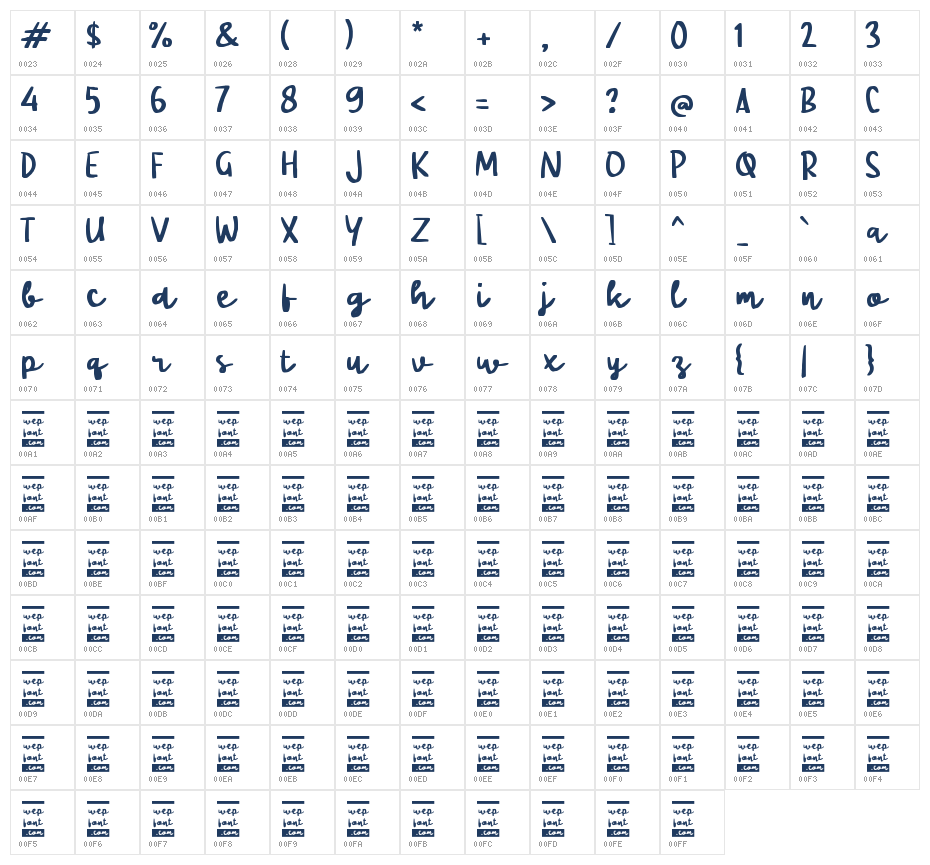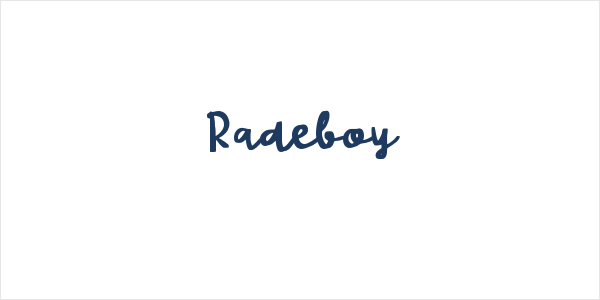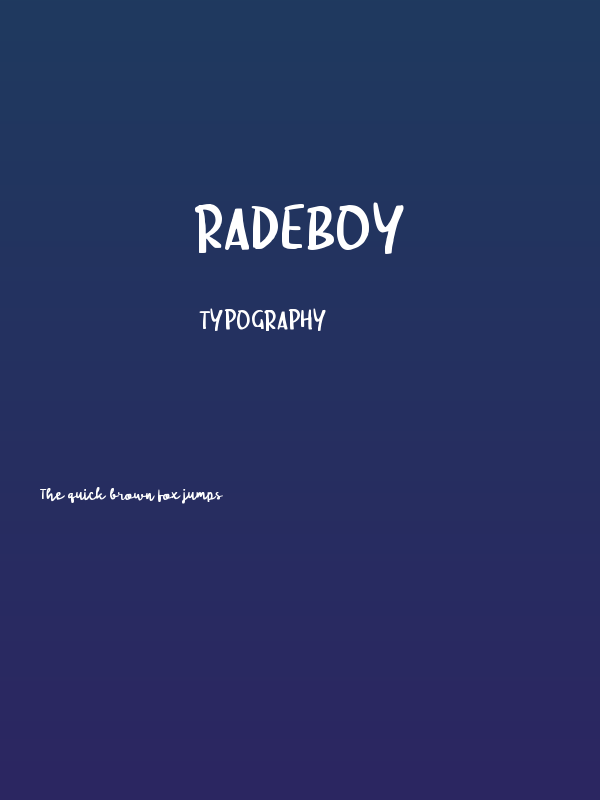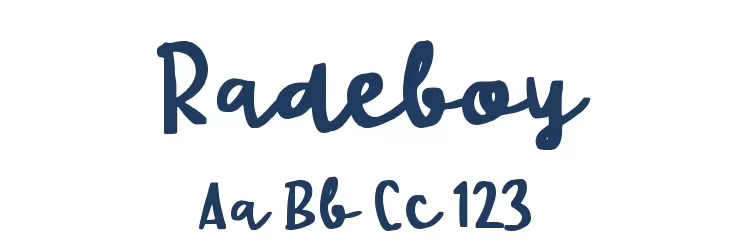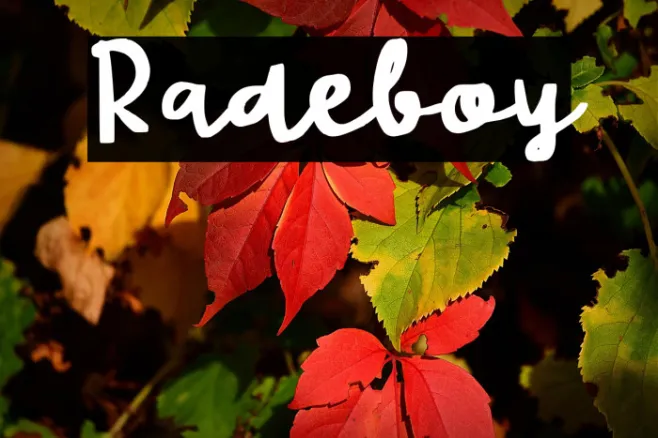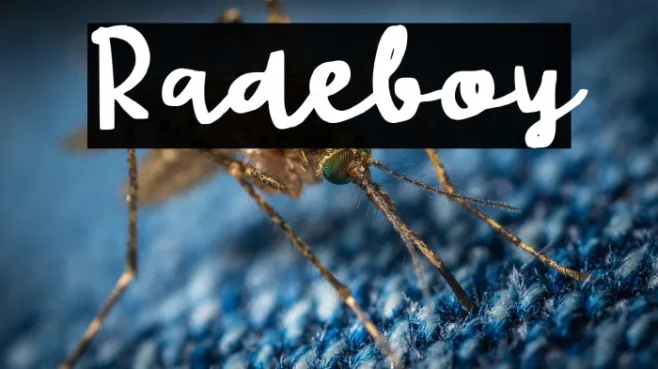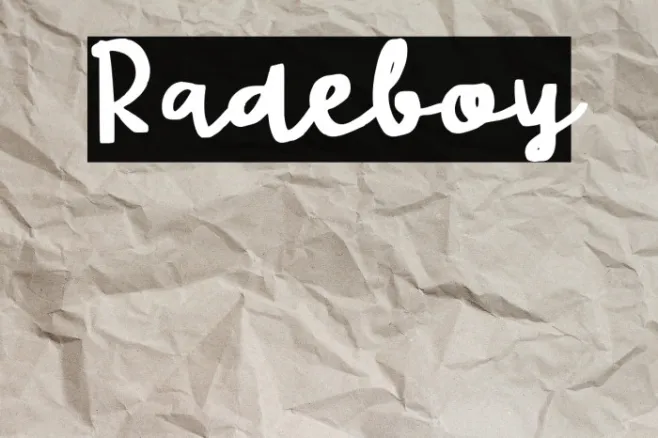
Radeboy Font
Radeboy Description
A playful, handwritten style font with a casual and friendly appearance, featuring slightly irregular strokes and a smooth flow.
| Overall Style | Casual, Friendly, Handwritten |
| Use Case | Headlines, Body text, Logos, Invitations |